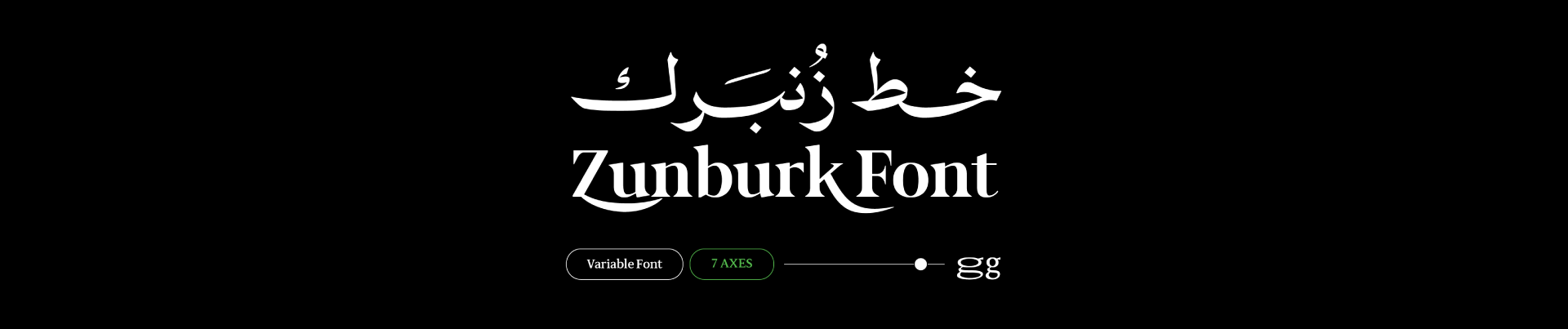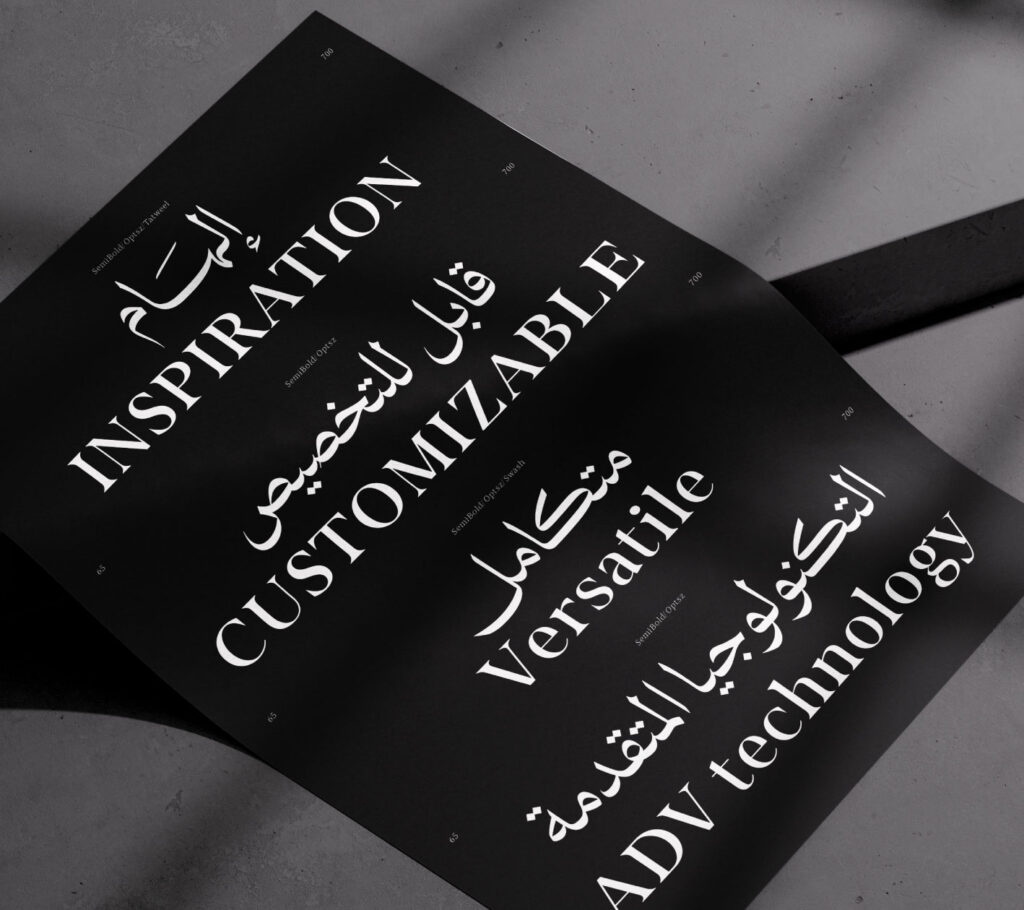
About Zunburk Font V3
Zunburk Font is one of the most distinctive multilingual typefaces, offering seven variable axes within a single font.. First released in early 2024, it has gone through several uplifting phases, culminating in the current Version 3. All letterforms have been redrawn and reprogrammed for greater precision and performance. A major update introduced Latin script support, which works seamlessly alongside Arabic across all axes.
Zunburk also includes 13 stylistic sets, a wide range of ligatures and contextual alternates, and refined typographic behavior that preserves the authenticity of traditional Naskh while embracing modern type technology. A newly added axis offers enhanced control over spacing and layout.
Zunburk is more than just a typeface—it functions like a font generator, offering a dynamic typographic system that bridges cultural heritage with contemporary design.